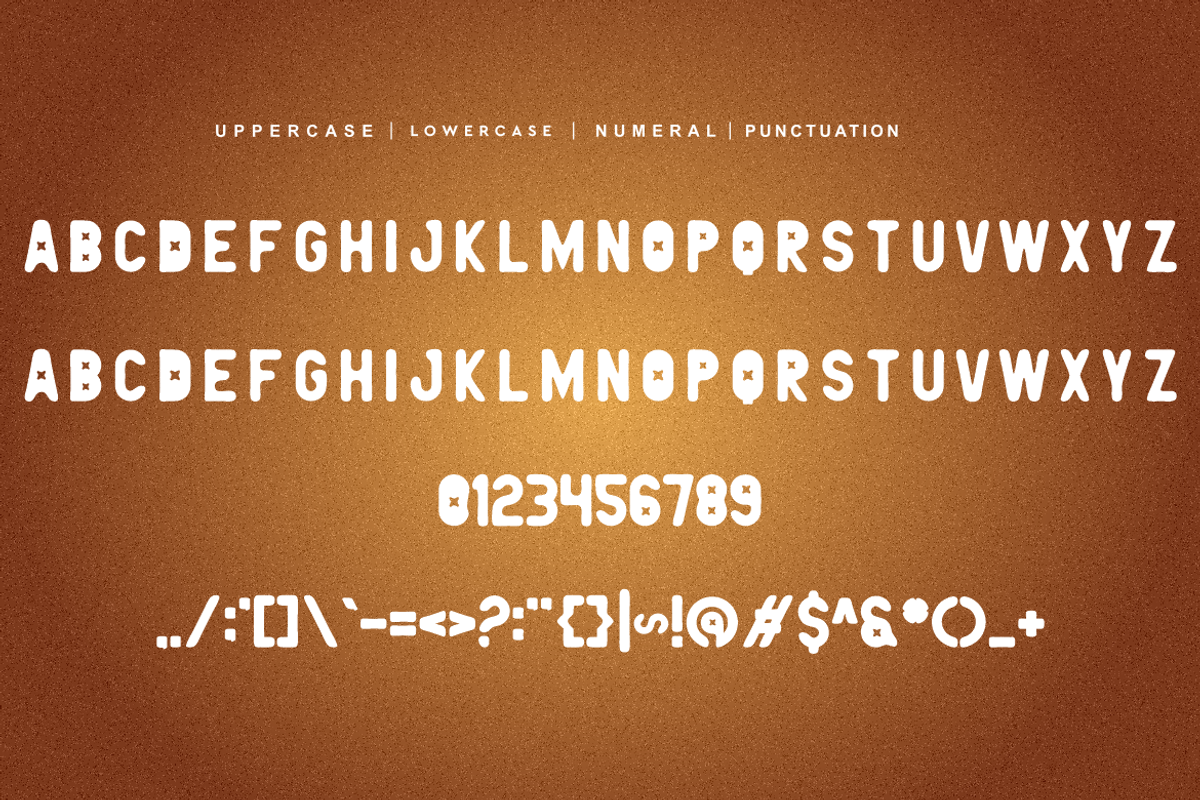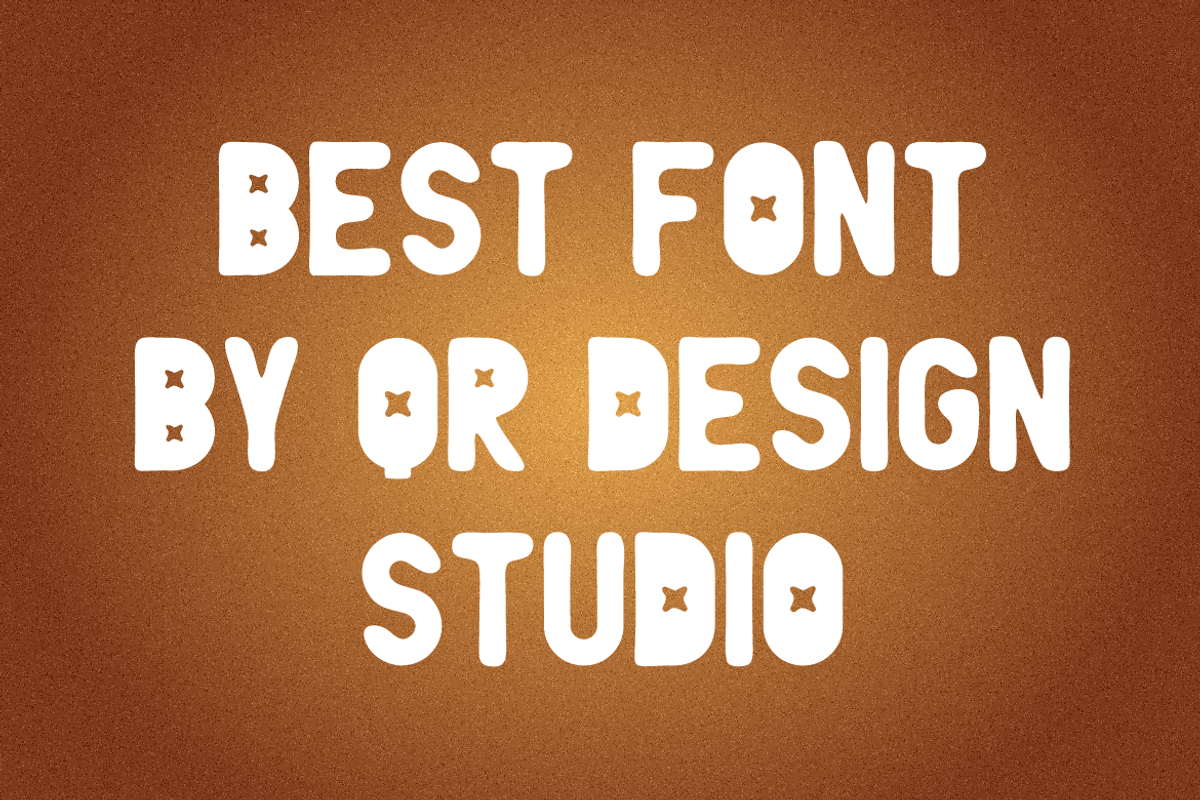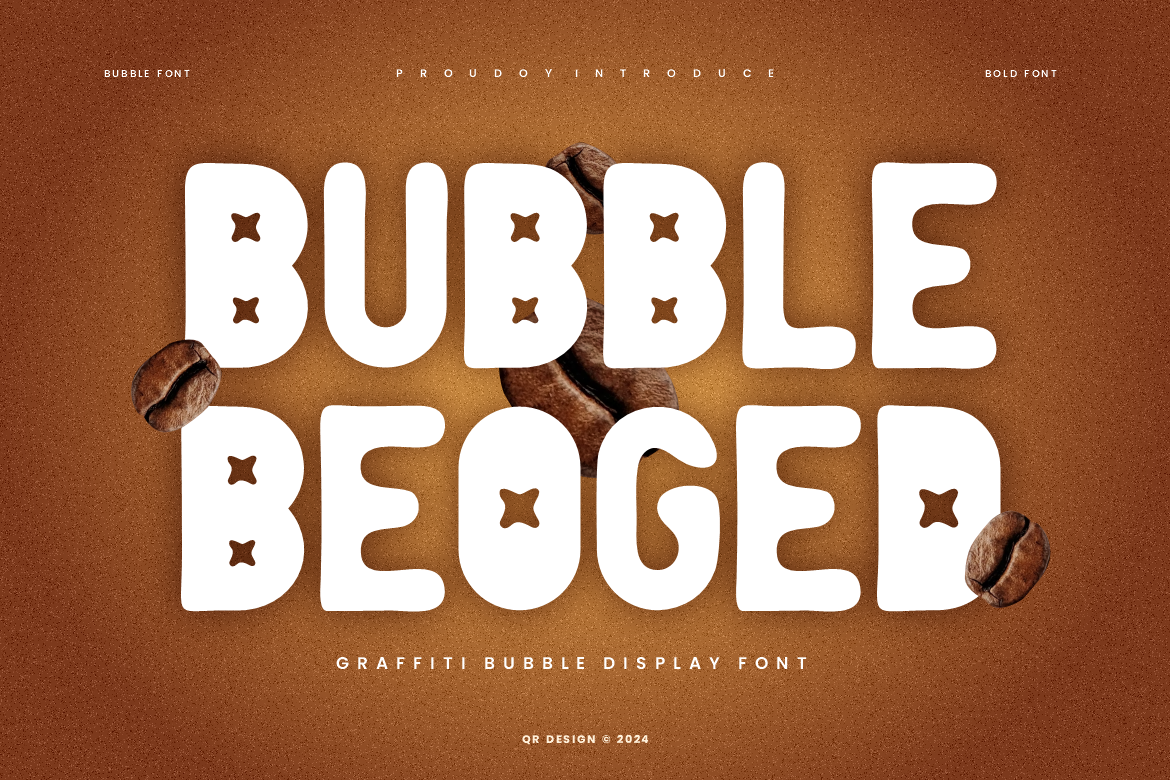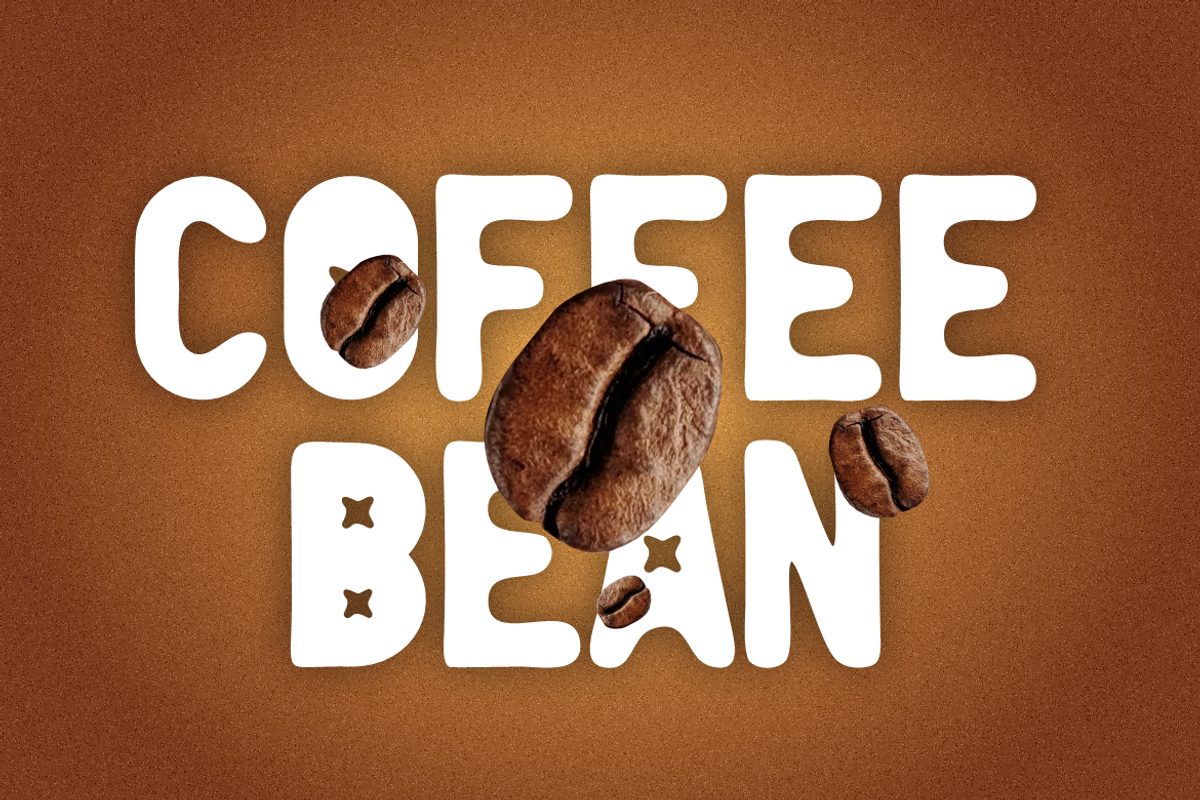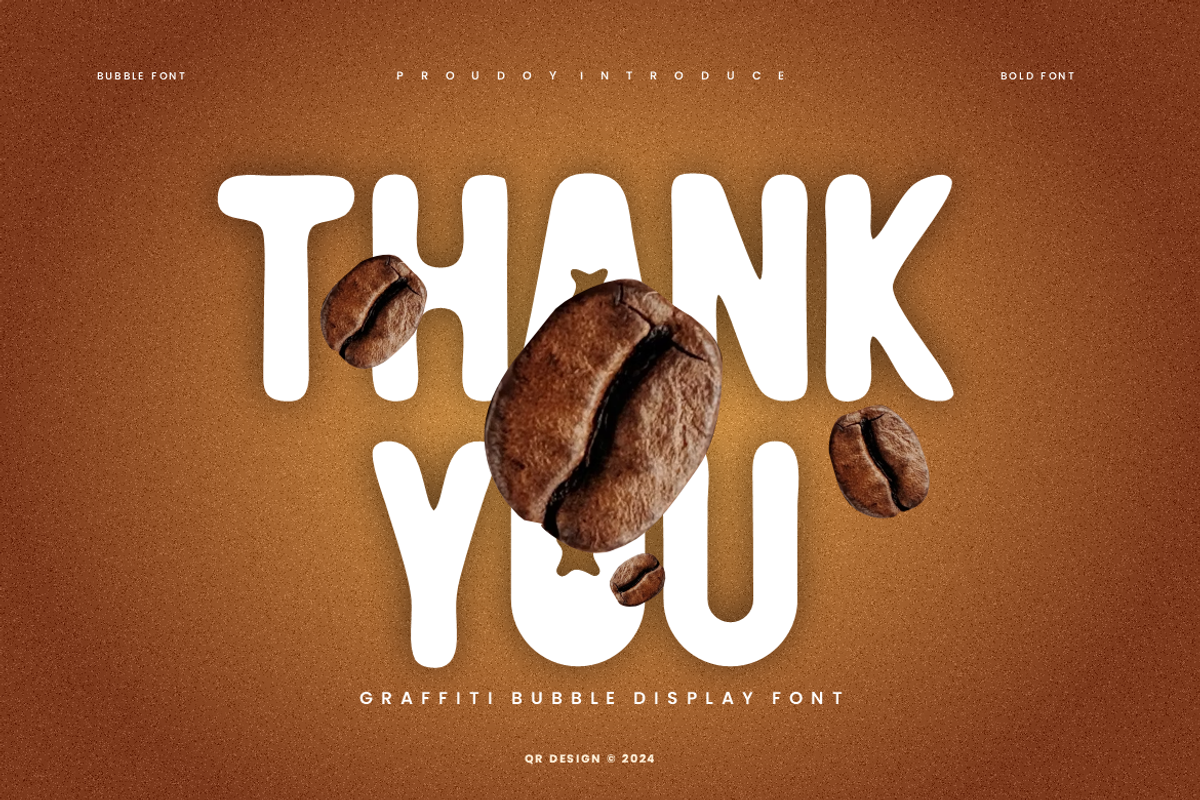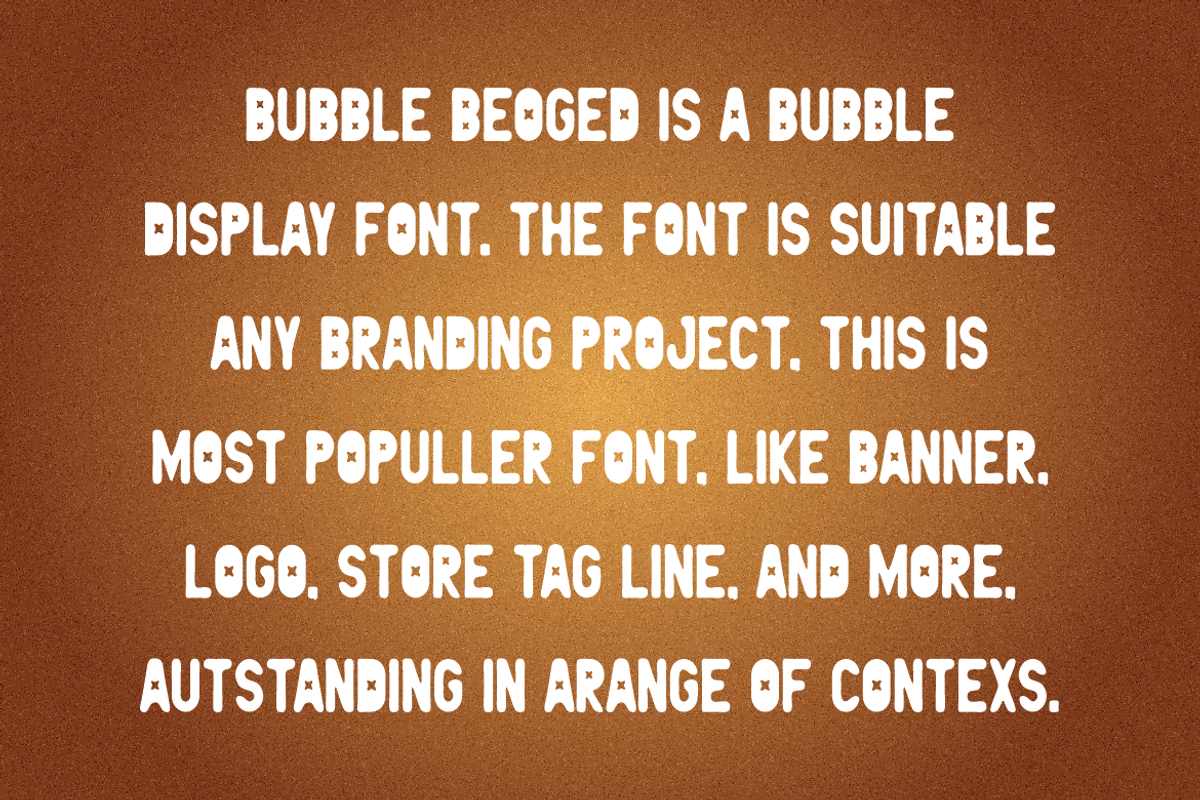
Bubble Beoged - Graffiti Font
Bubble Beoged - Graffiti Font is a bold and authentic display font. The font is suitable for any branding project like poster, logo, sport, and many more. Outstanding in a wide range of contexts.